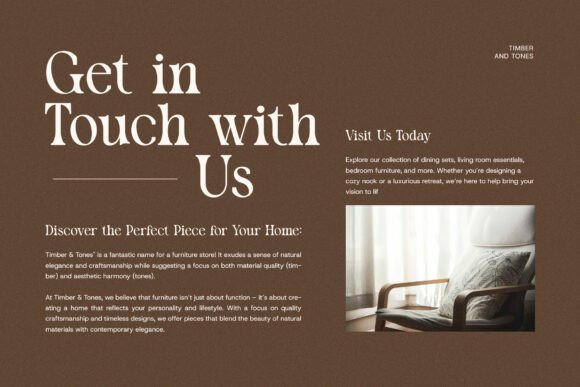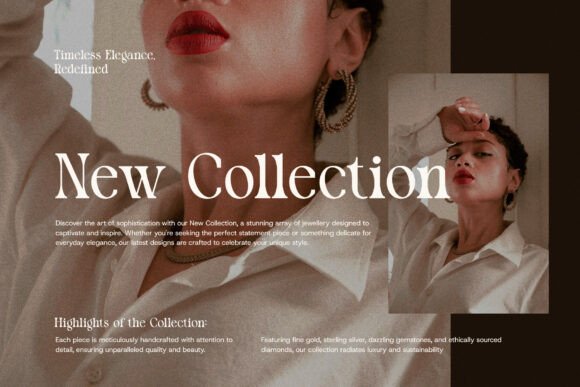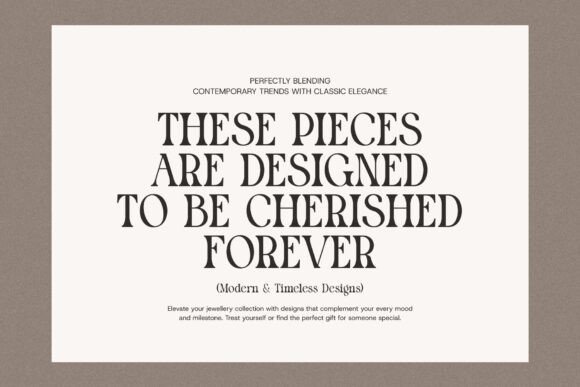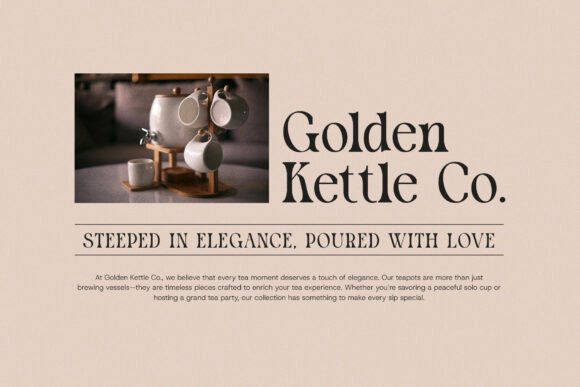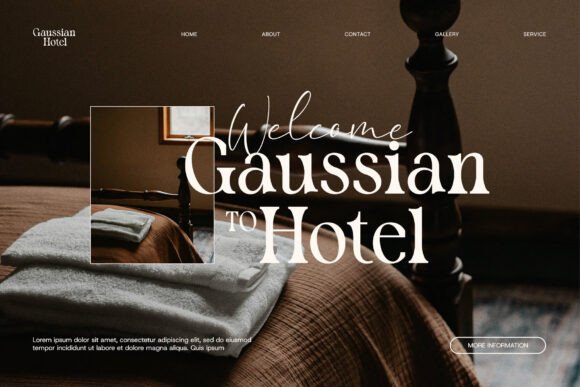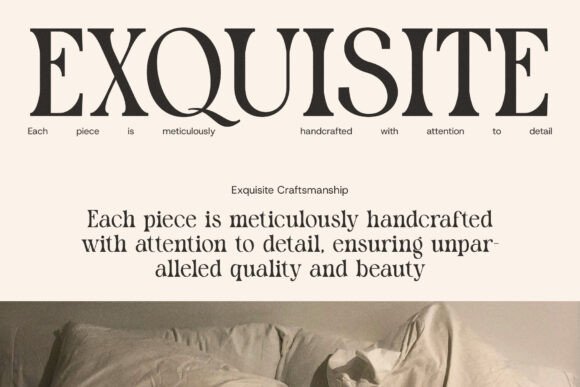
Introduction to Molyn Font
Have you ever stumbled upon a font that perfectly captures the essence of your creative vision? For designers, it’s a moment of pure serendipity. The search for that perfect typeface can be a long and arduous journey, but when you finally find it, it’s like discovering a treasure trove of design possibilities. For those who have been on this quest, we’re excited to introduce you to the Molyn Font – a refined and stylish typeface that combines timeless elegance with a contemporary twist.
Whether you’re working on a high-end branding project or a luxury logo, the Molyn Font is an exceptional choice. Its clean lines, beautifully crafted letterforms, and transparent background make it a valuable resource for designers who demand high quality and precision in their creative projects. With its free download option, you can experiment with this versatile font across various design mediums, from digital websites to print media, and even product packaging.
Key Features of Molyn Font
- High-quality design with a unique aesthetic, perfect for creative projects that require a distinctive touch.
- Features a large character set, including international characters and symbols, to cater to diverse design needs.
- Designed to work well at high resolutions, ensuring crisp and clear typography in various print and digital applications.
- Suitable for a wide range of creative projects, from branding and advertising to editorial and publishing designs.
Honest Review: Molyn Font
I recently came across the Molyn Font, and I must say it’s been a great addition to my design resource collection. The font is available for free download, which is a huge plus for designers working on creative projects with limited budgets.
What I love about the Molyn Font is its high quality and unique aesthetic. The font features a transparent background, which makes it easy to use in various design scenarios. The font’s design is modern, elegant, and versatile, making it suitable for a wide range of creative projects.
Here are some features that I think work well in the Molyn Font:
- ✨ Unique and modern design
- ✨ High quality and crisp typography
- ✨ Easy to use and customize
However, I do have some limitations to mention:
- ⚠️ Limited font styles and weights
- ⚠️ Not ideal for complex text-based designs
Overall, I’m quite impressed with the Molyn Font. It’s a great resource for designers working on creative projects, and it’s free! While it has some limitations, I think it’s definitely worth checking out for anyone looking for a high-quality, modern font.
Molyn Font
Molyn Font is commonly used in creative projects such as graphic design, digital art, and typography. It’s also great for presentations, documents, and websites that require a unique and stylish look.
To get the most out of Molyn Font, experiment with different font sizes, colors, and styles to create a unique look. You can also combine Molyn Font with other design elements to create a visually appealing design.